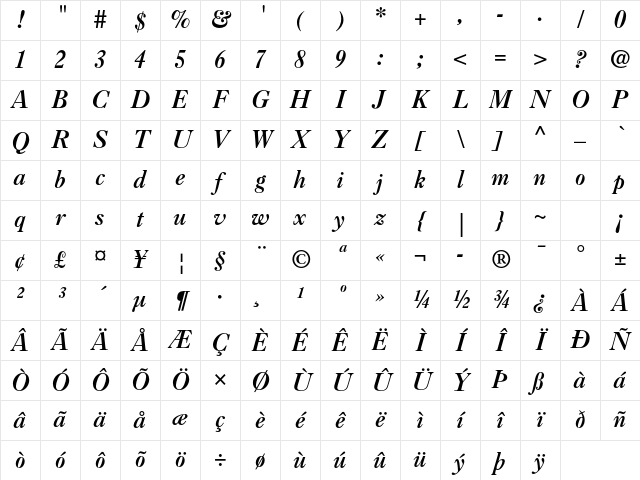
Caslon 3 LT Std Italic
Designer: American Type Founders Staff
Design Context for Caslon 3 LT Std
Caslon 3 LT Std is a composed and adaptable typeface that performs quietly and consistently across a wide range of design contexts. The slanted form adds forward momentum and visual energy. Its slender proportions lend an understated elegance to any composition.
Pro Tip: Use Caslon 3 LT Std for emphasis, pull quotes, and subheadings where its slanted energy can add rhythm to the layout.